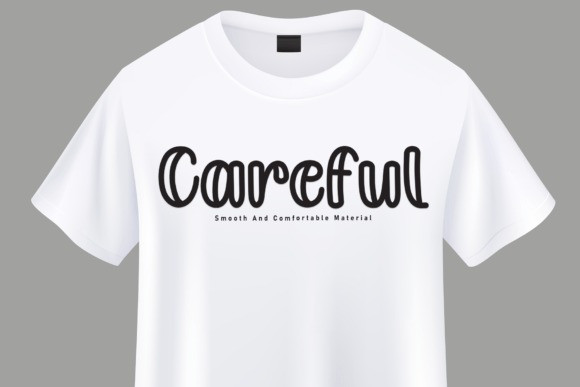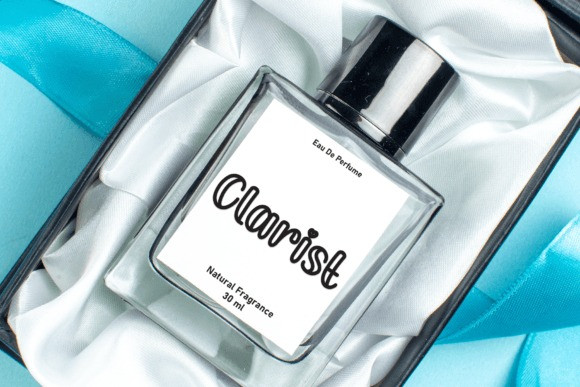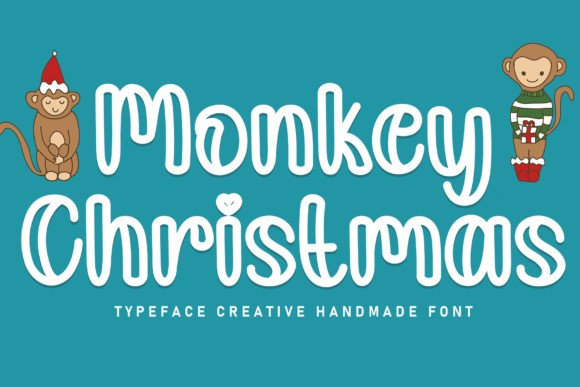
Monkey Christmas Font
Monkey Christmas Font is a sweet and friendly handwritten display font. Cute and fun, this font is ideal for writing wedding invitations, cards, or any other design that might need a fun touch!